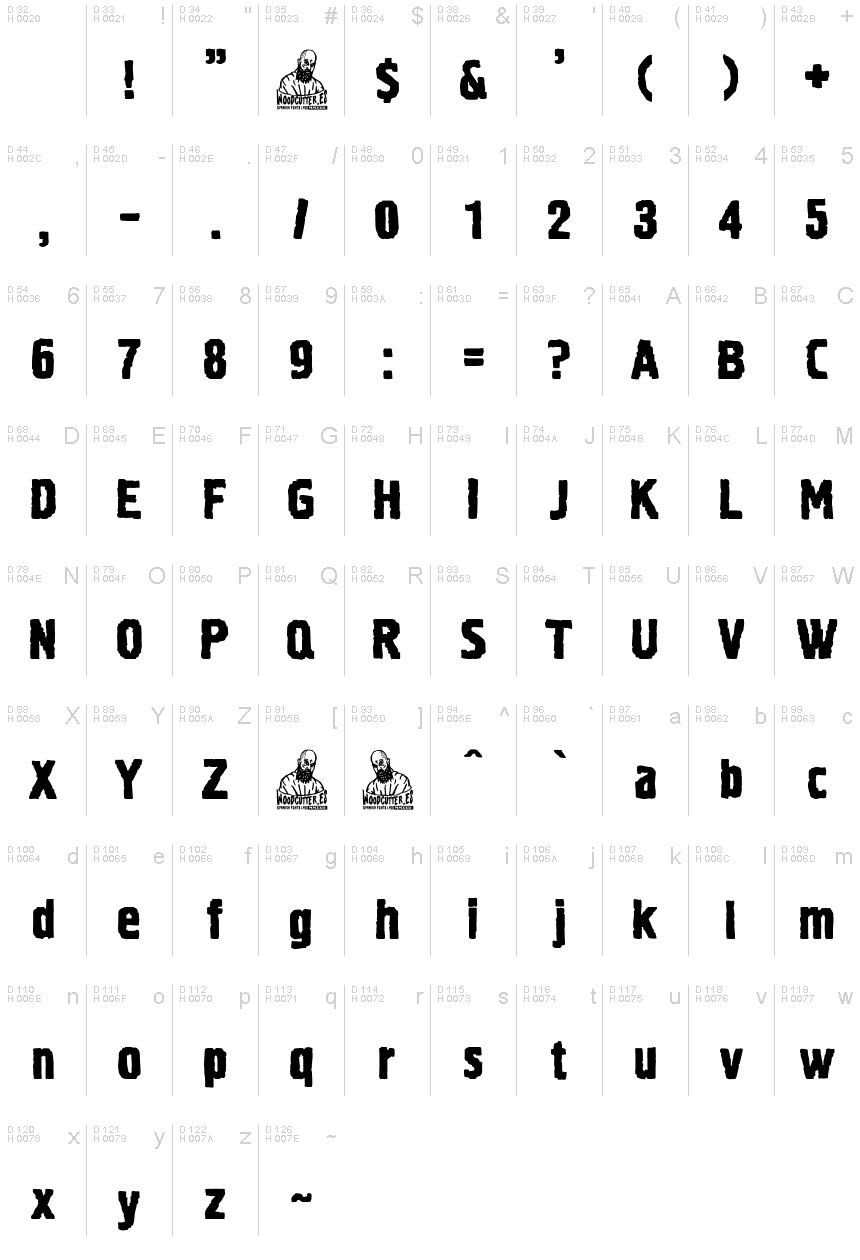
Tiempos Modernos
Tiempos Modernos, designed by Woodcutter, is a captivating display font that exudes a rustic charm. With its eroded style and bold weight, it is perfect for vintage-inspired projects like retro logos, album covers, and signage. Its weathered appearance adds character and authenticity to branding materials for breweries, coffee shops, or barber shops. Additionally, Tiempos Modernos' distinctively worn-out features make it suitable for grunge-themed designs such as concert posters or urban fashion labels. Let this font transport your audience to a bygone era while leaving a lasting impression on any creative endeavor.